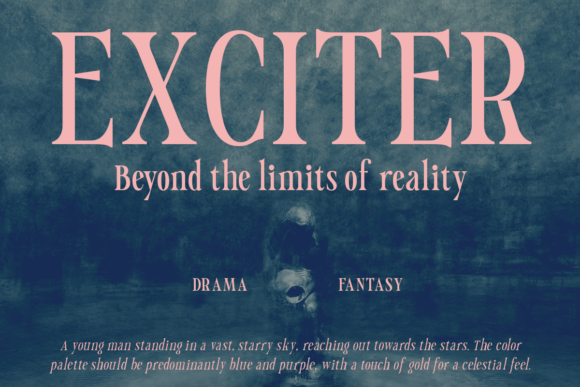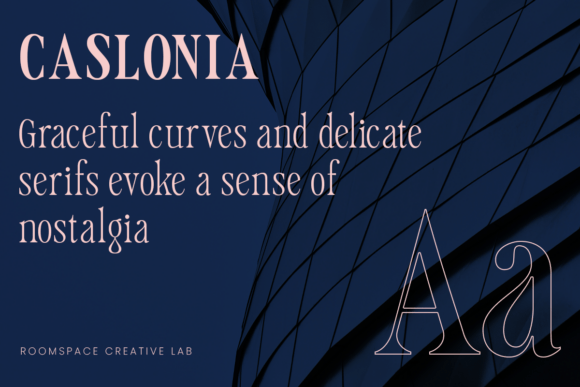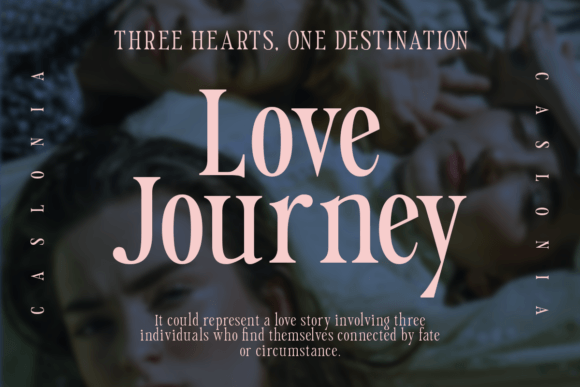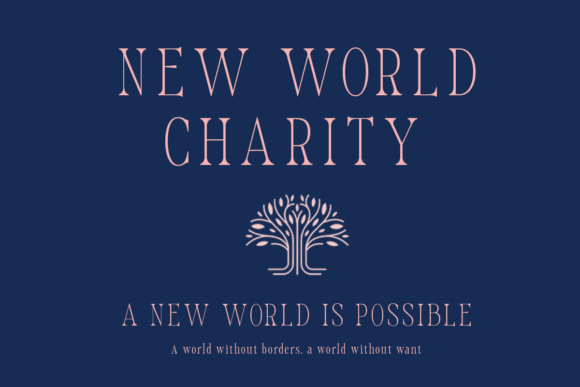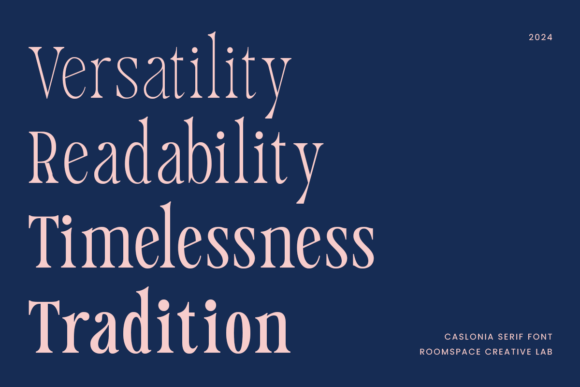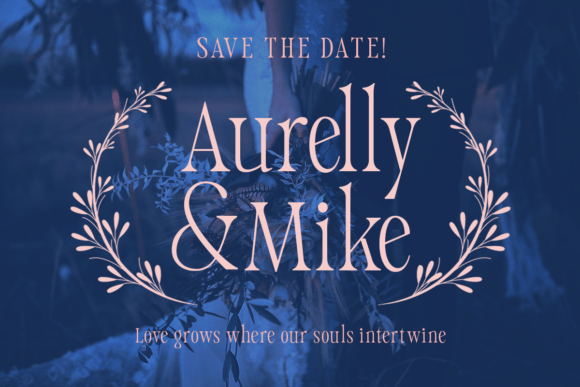
Introducing Caslonia Font: A Timeless Elegance for Modern Design
In the world of typography, few typefaces have managed to stand the test of time, retaining their elegance and sophistication across centuries. Caslonia Font is one such meticulously crafted serif typeface that draws inspiration from the classic typography of the past, while infusing it with a touch of modern sophistication. This versatile font family offers a range of 14 styles, making it an ideal choice for designers seeking a blend of vintage charm and modern aesthetics.
The Design Philosophy of Caslonia
Caslonia is designed with a deep understanding of the needs of modern designers. Its slightly tall and refined structure gives it a unique elegance, making it perfect for projects that demand a touch of class and sophistication. The font family consists of 7 distinct weights, ranging from Thin to Bold, each with its matching italics. This extensive range allows designers to experiment with different styles, ensuring that their work stands out with a level of refinement and luxury.
Key Features of Caslonia Font
- 14 Styles: Caslonia offers a versatile range of 14 styles, including 7 distinct weights and their matching italics.
- Versatility: The font family is suitable for various design needs, from logo design and branding to luxury projects, editorial layouts, and more.
- Elegant Structure: Caslonia’s slightly tall and refined structure gives it a unique elegance, perfect for projects that demand a touch of class and sophistication.
- Modern Sophistication: The font combines classic typography with a touch of modern sophistication, making it ideal for designers seeking a blend of vintage charm and modern aesthetics.
Use Cases for Caslonia Font
Caslonia is an excellent choice for a wide range of design projects. Here are some of the most popular use cases:
- Logo Design: The elegant structure and refined lines of Caslonia make it perfect for creating sophisticated logos that convey luxury and class.
- Branding: The font family’s versatility and range of styles make it an excellent choice for branding projects, allowing designers to create a cohesive visual identity.
- Luxury Projects: Caslonia’s classic elegance and modern sophistication make it ideal for luxury projects, such as high-end fashion brands, jewelry, and more.
- Editorial Layouts: The font’s refined structure and elegant lines make it perfect for adding a touch of sophistication to editorial layouts, such as magazines, newspapers, and books.
Why Choose Caslonia Font?
With so many typefaces available, why choose Caslonia Font? Here are a few compelling reasons:
- Timeless Elegance: Caslonia’s classic design ensures that it will remain elegant and sophisticated for years to come, without dating quickly.
- Versatility: The font family’s extensive range of styles makes it suitable for a wide range of design projects, from luxury branding to editorial layouts.
- High-Quality Design: Caslonia is meticulously crafted, with attention to detail and a focus on quality, ensuring that it meets the needs of discerning designers.
In conclusion, Caslonia Font is a versatile and elegant serif typeface that offers a unique blend of classic typography and modern sophistication. With its extensive range of styles, refined structure, and timeless elegance, it is an ideal choice for designers seeking a high-quality font for their projects. Whether you’re creating a luxury brand, crafting elegant editorial layouts, or designing sophisticated logos, Caslonia Font is an excellent choice.